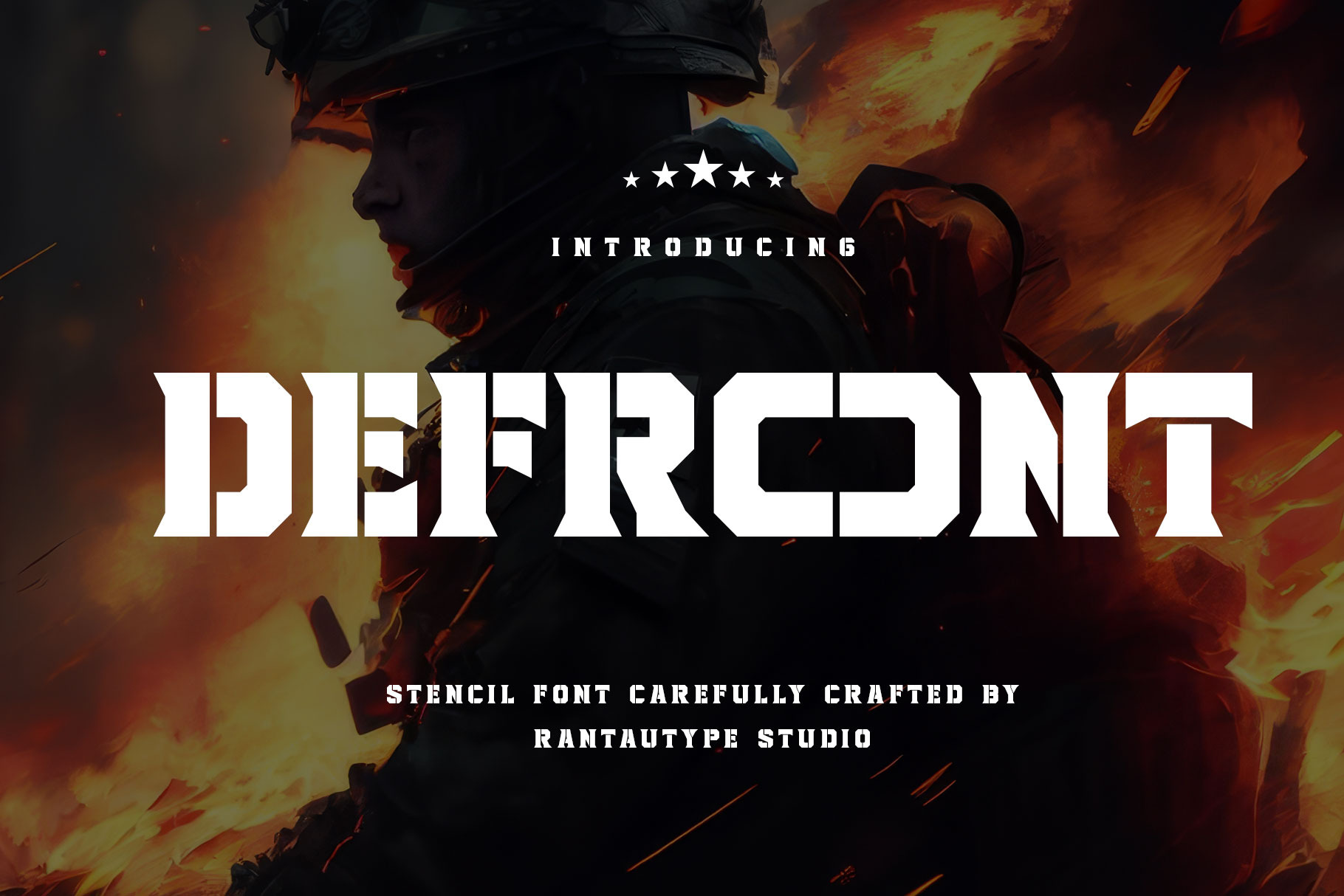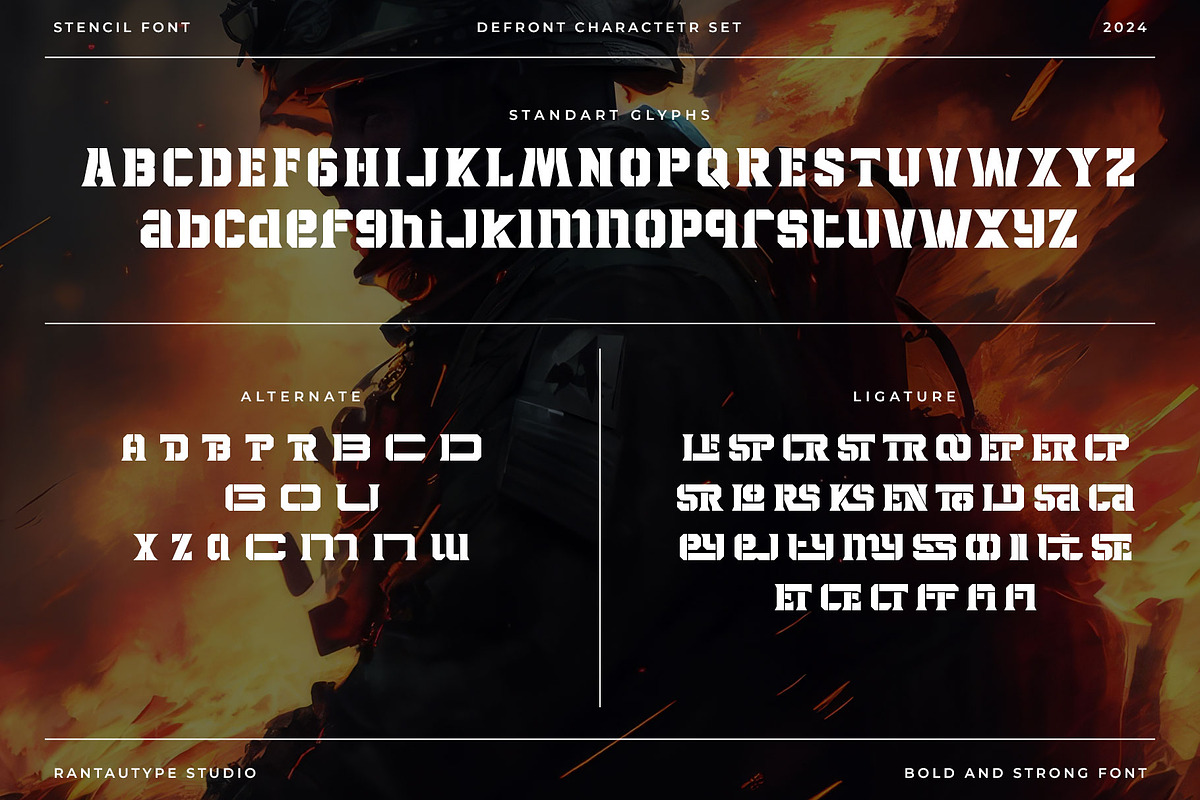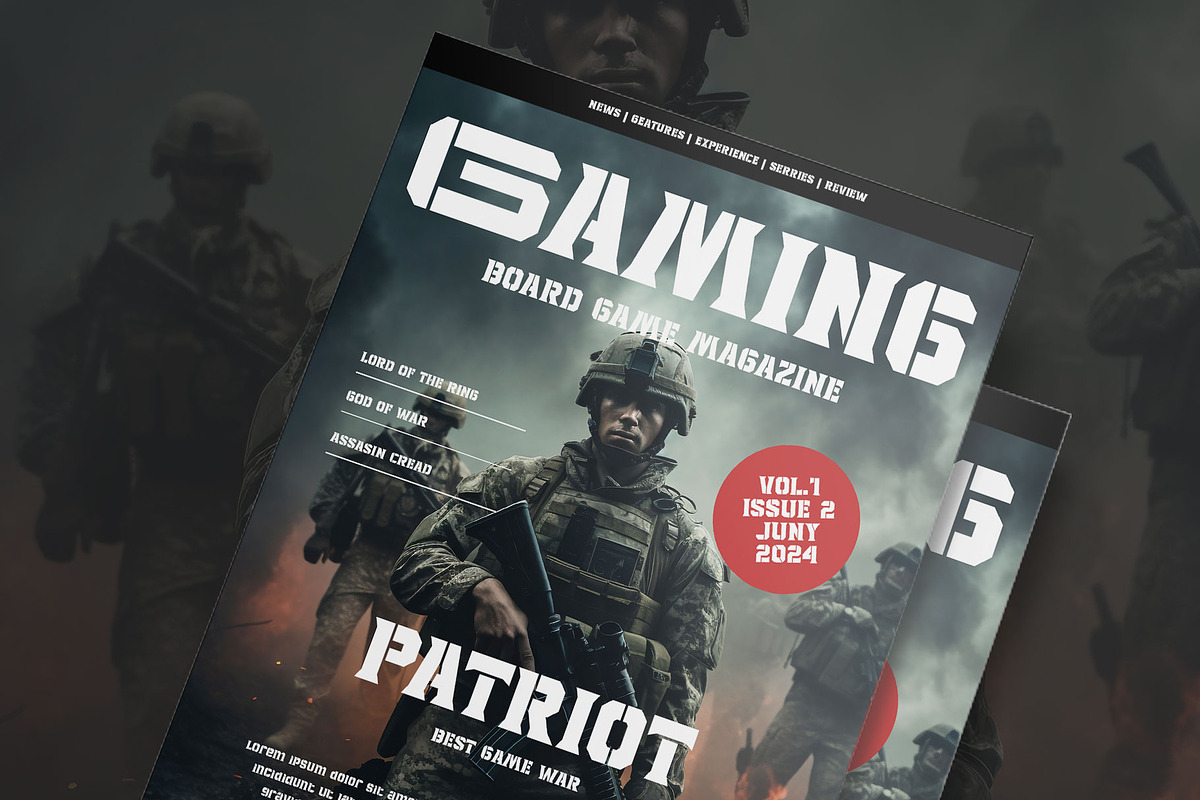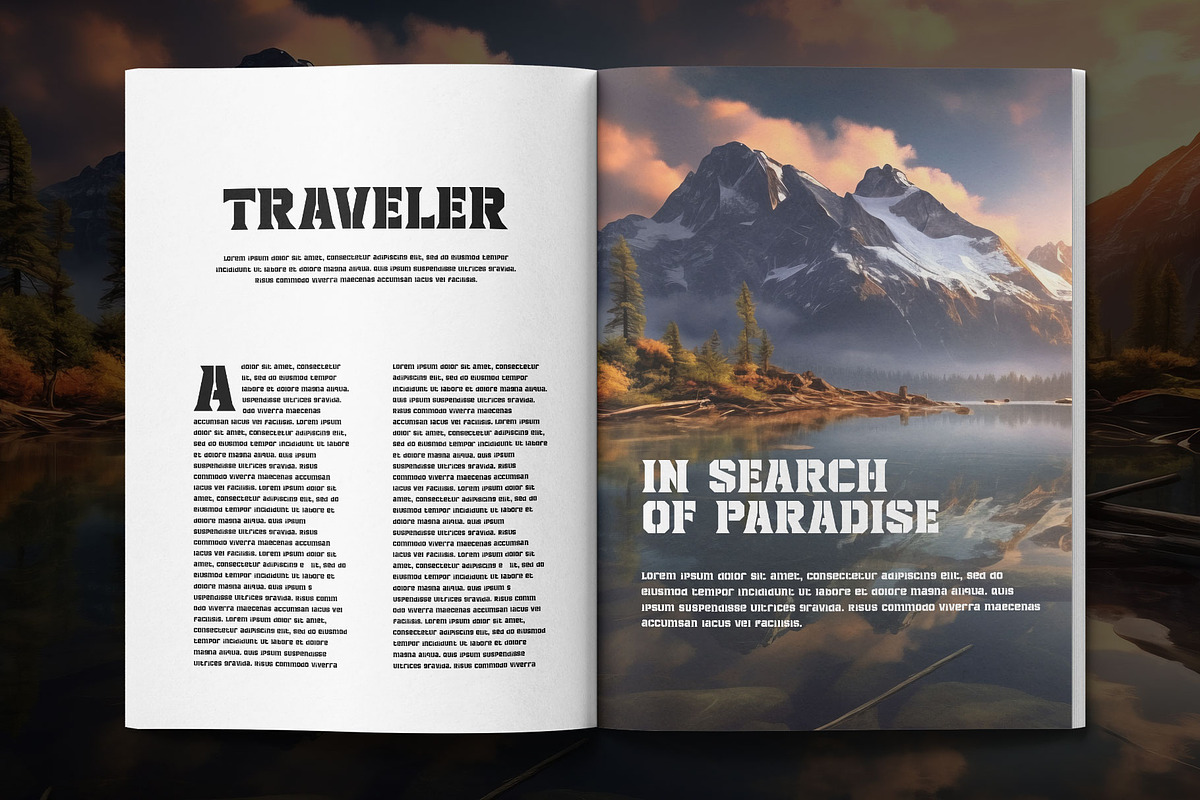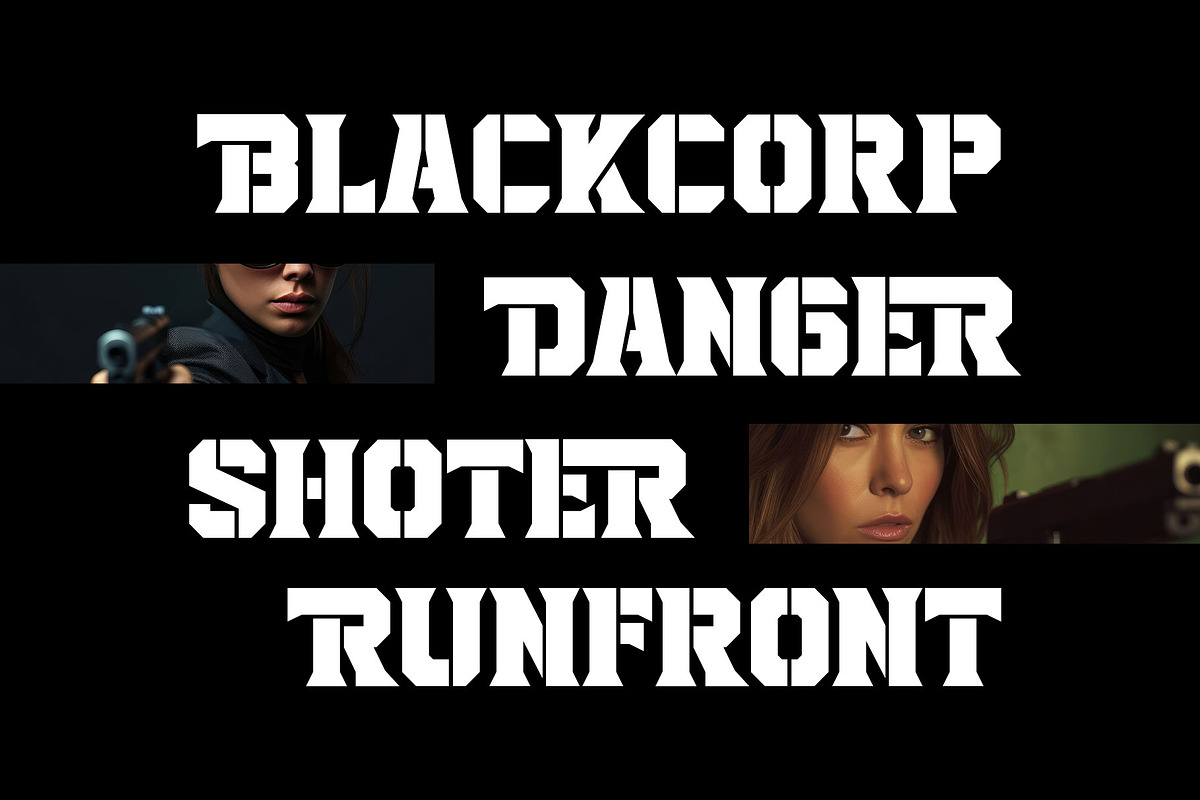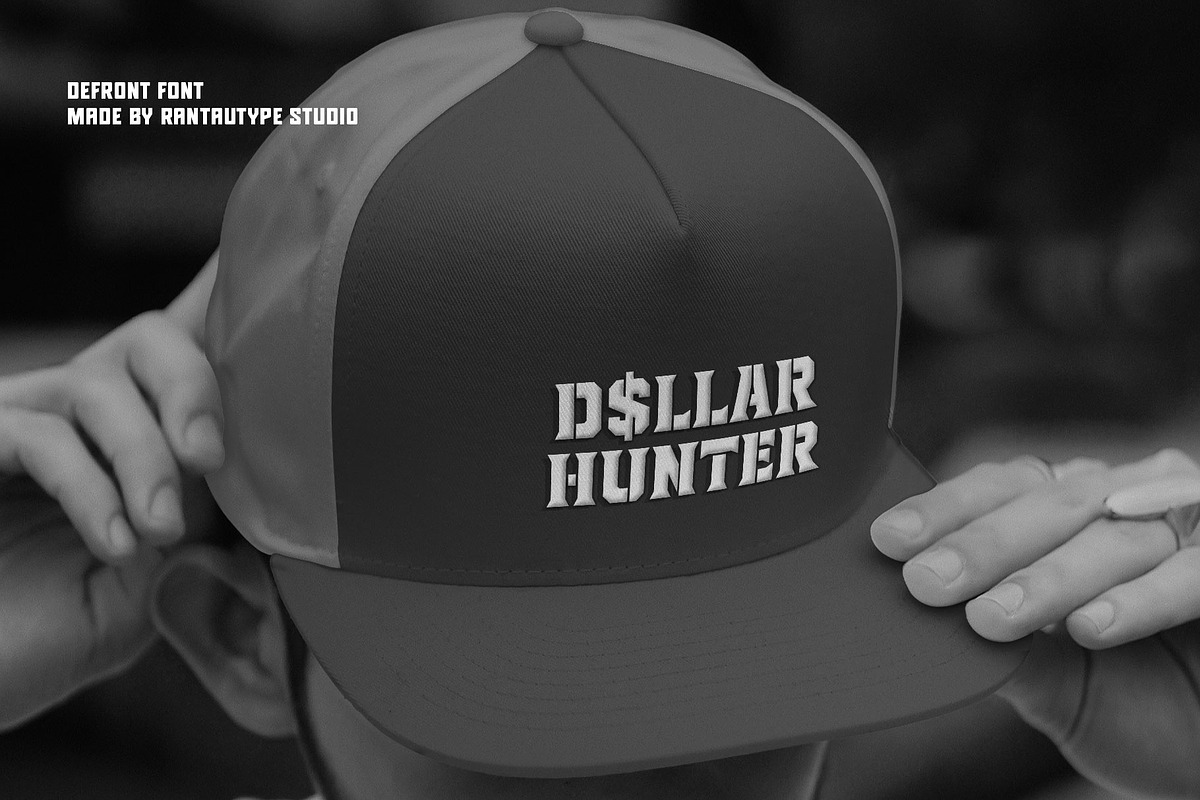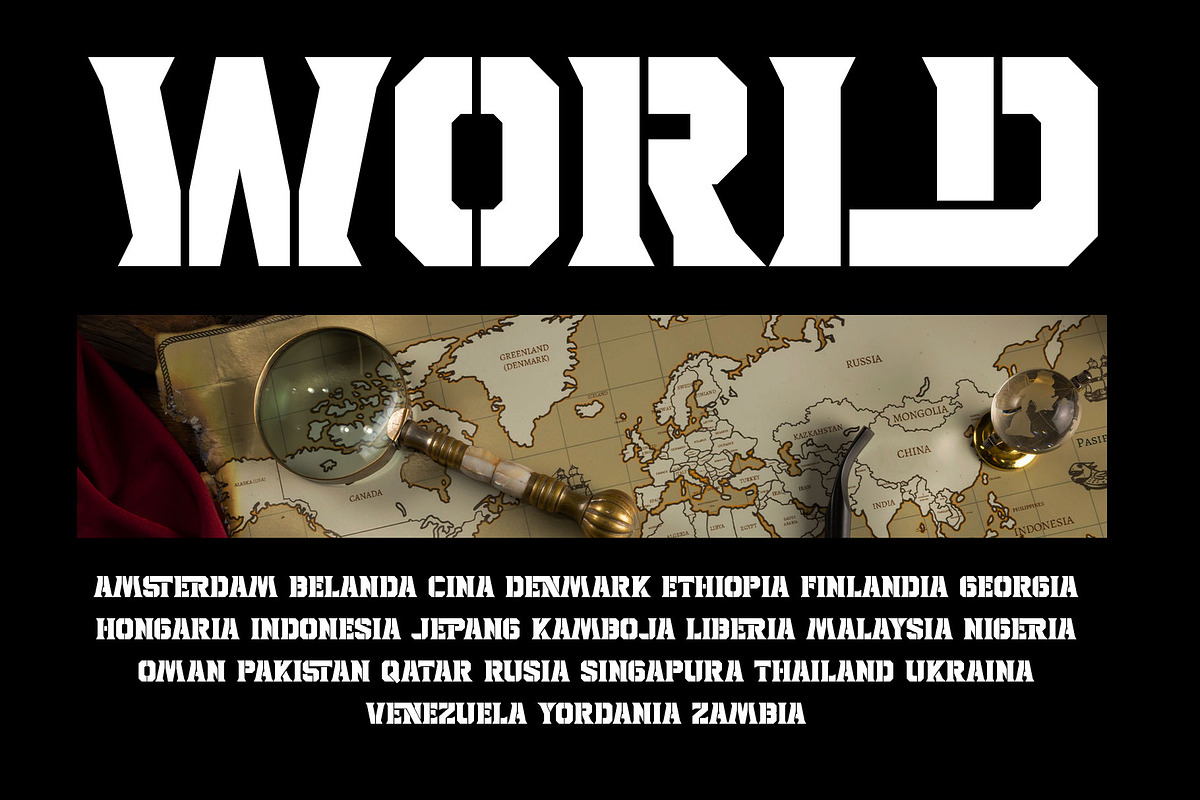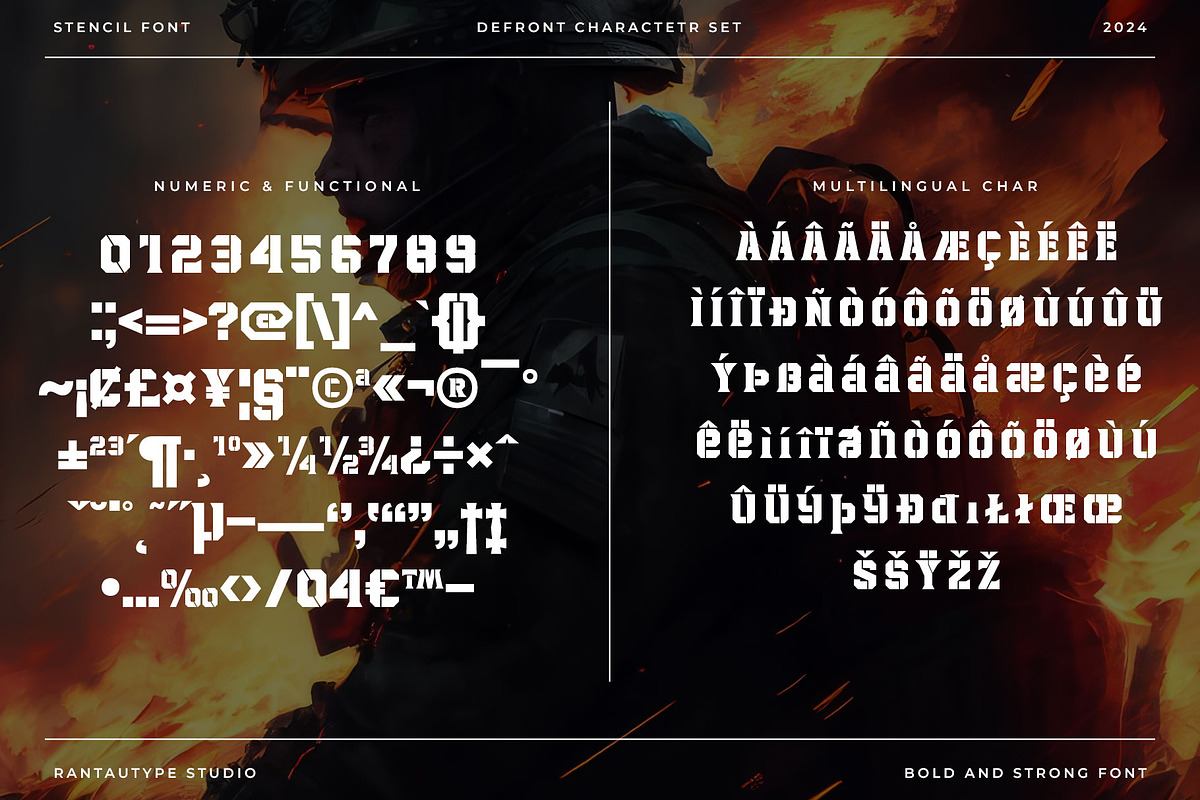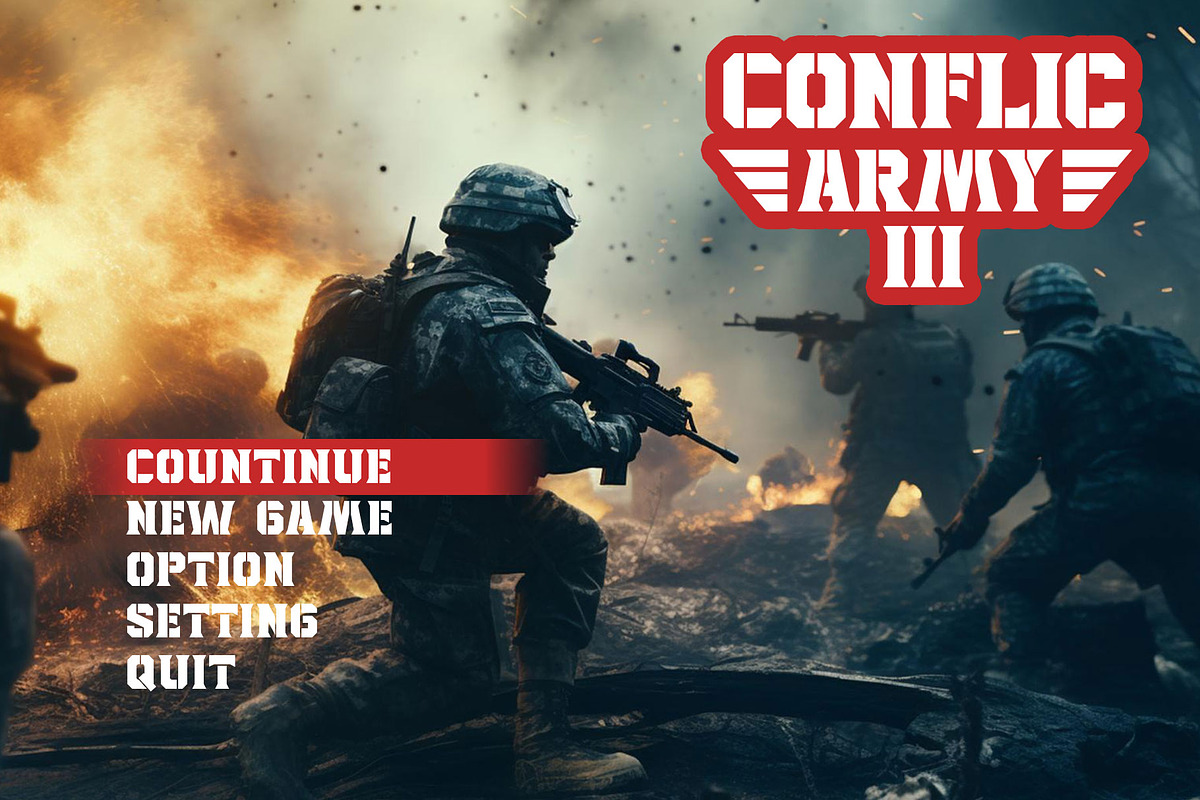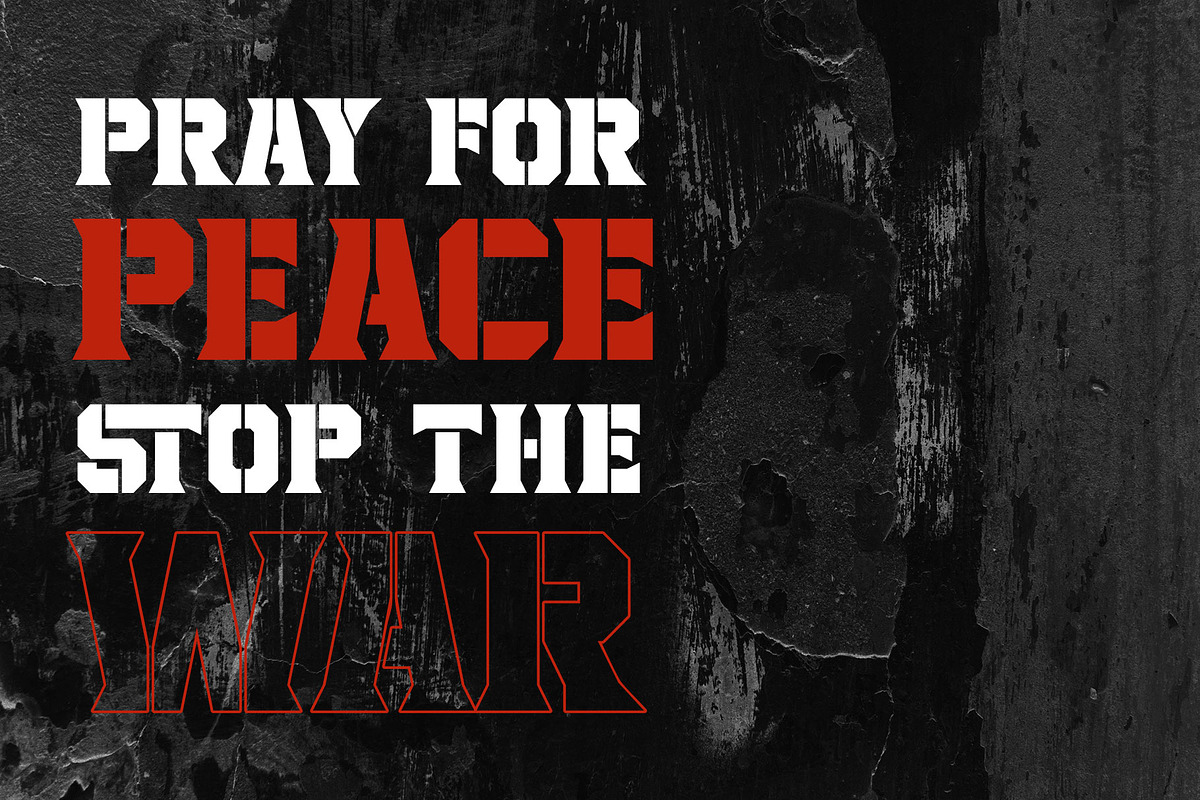
Defront Stencil Font
Defront is a stencil form inspire by millitary visual design. Defront bring bold and strong geometric shape to create design project versatile look.
Defront is a perfectly choice for any creative endeavor, bold and strong, lifestyle design such as logotype, advertisements, caution design, stationery, branding project, display and magazine, invitation, corporate brand, product design, label, business project and many other project with millitary or sport touch.
- Alternate and Ligature
Fonts include Multilingual Character for: Afrikaans, Albanian, Asu, Basque, Bemba, Bena, Breton, Chiga, Cornish, Dutch, English, Estonian, Filipino, Finnish, Friulian, Galician, Gusii, Indonesian, Irish, Italian, Kabuverdianu, Kalenjin, Kinyarwanda, Luo, Luxembourgish, Luyia, Machame, Makhuwa-Meetto, Makonde, Malagasy, Manx, Morisyen, North, Ndebele, Nyankole, Oromo, Portuguese, Quechua, Romansh, Rombo, Rundi, Rwa, Samburu, Sango, Sangu, Scottish, Gaelic, Sena, Shambala, Shona, Soga, Somali, Spanish, Swahili, Swedish, Swiss, German.